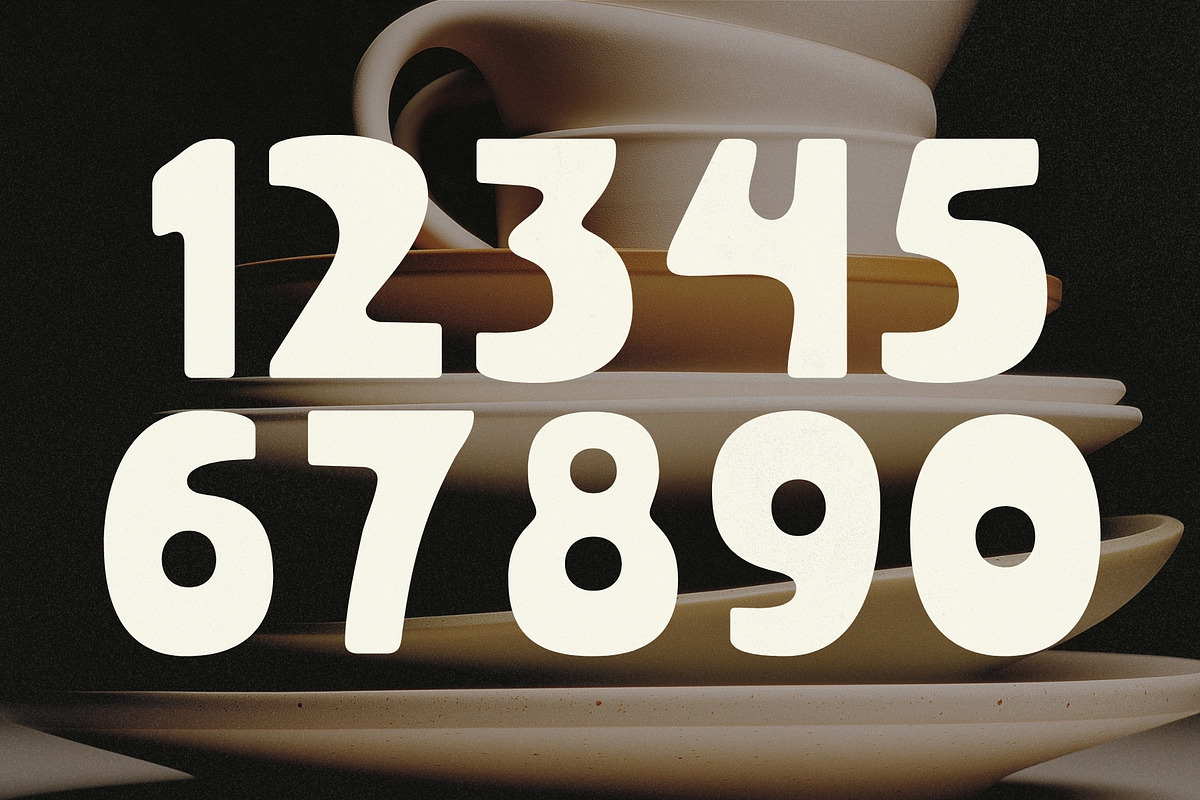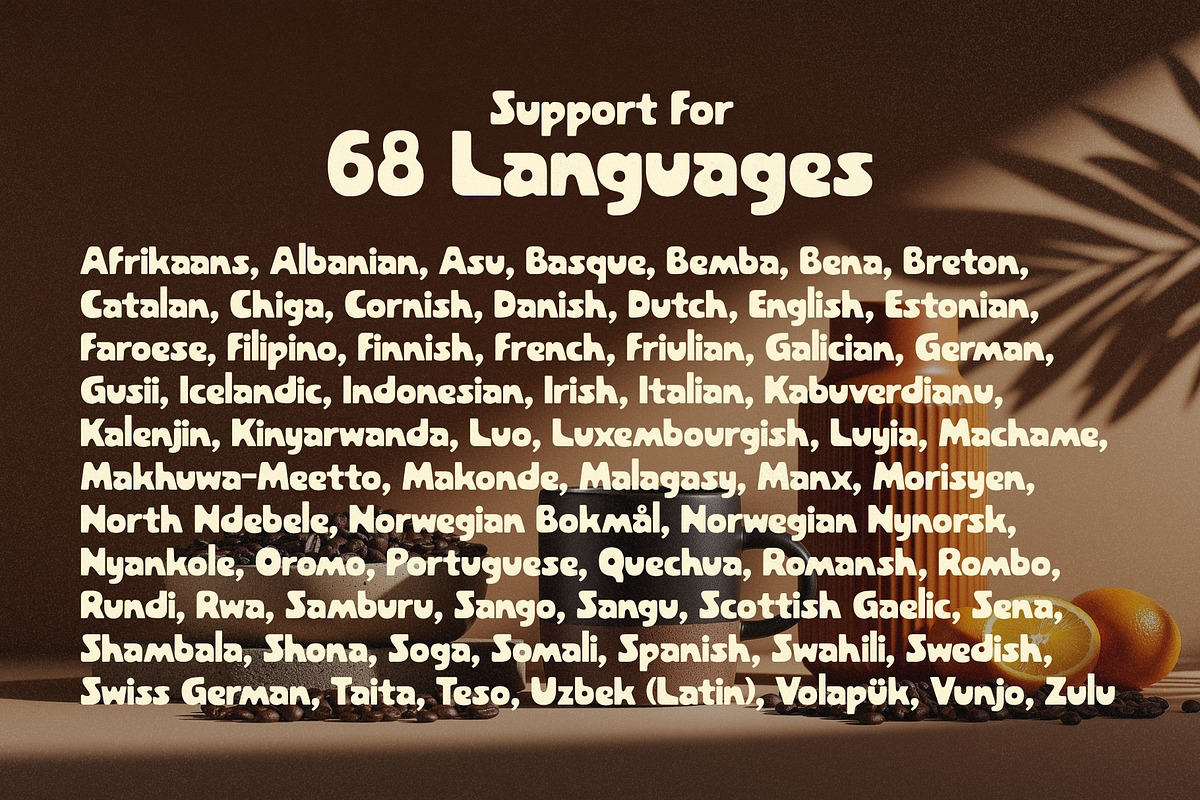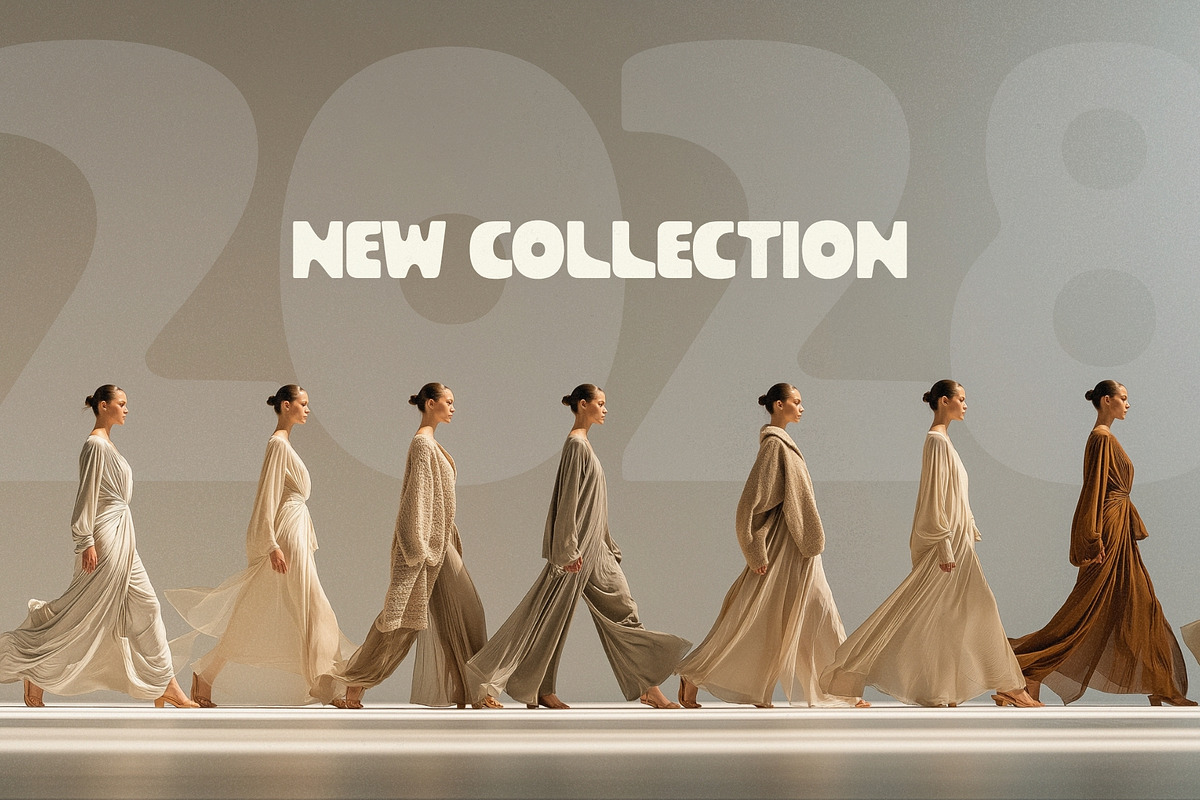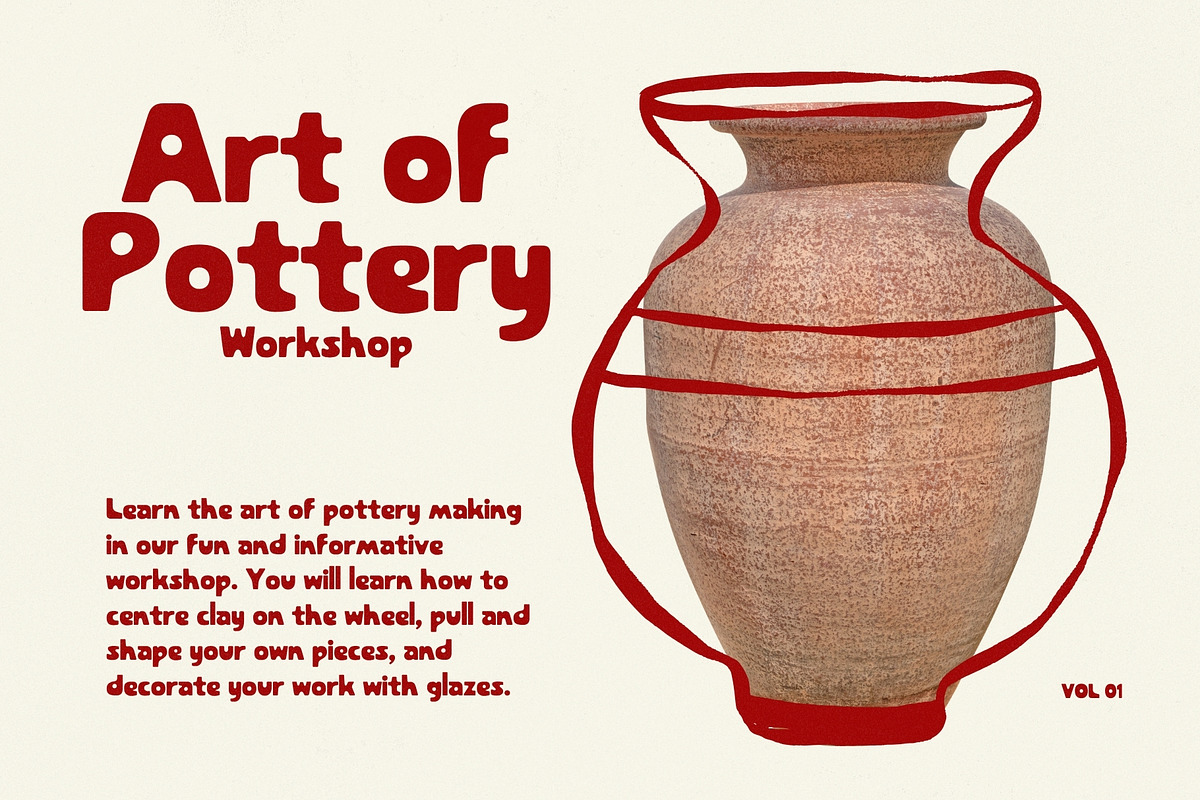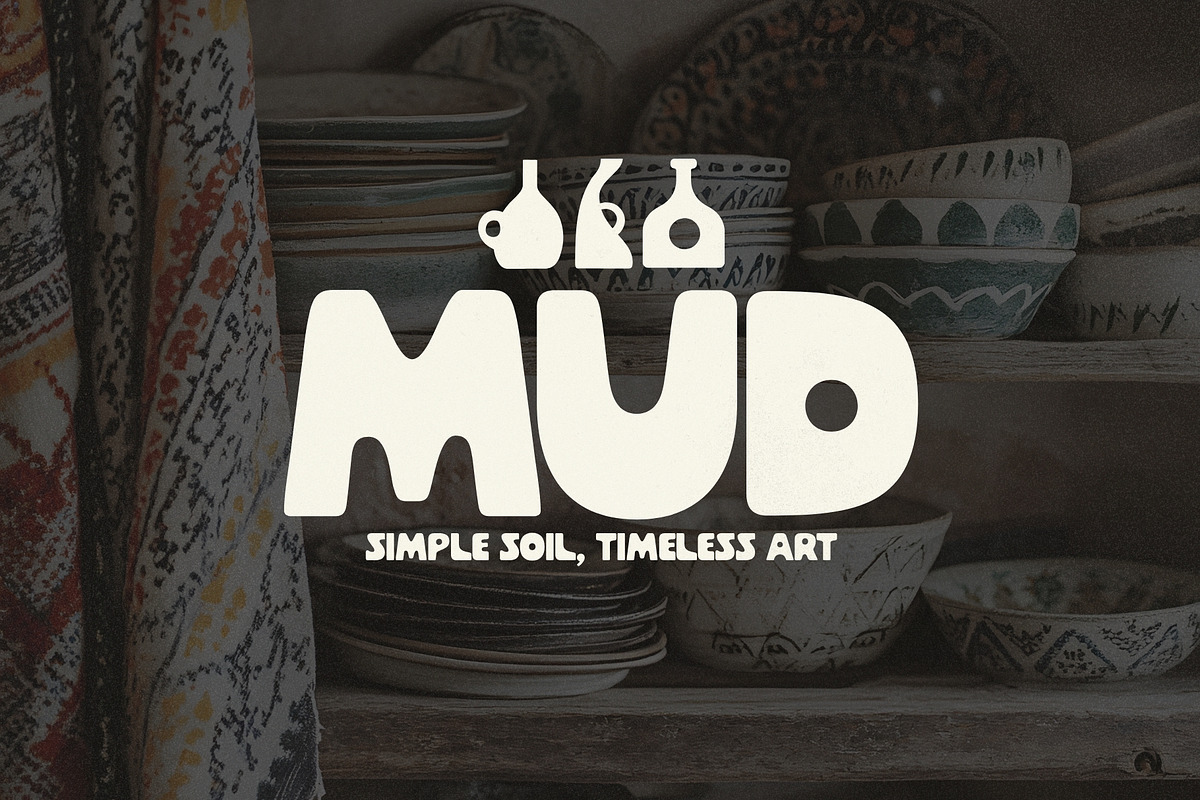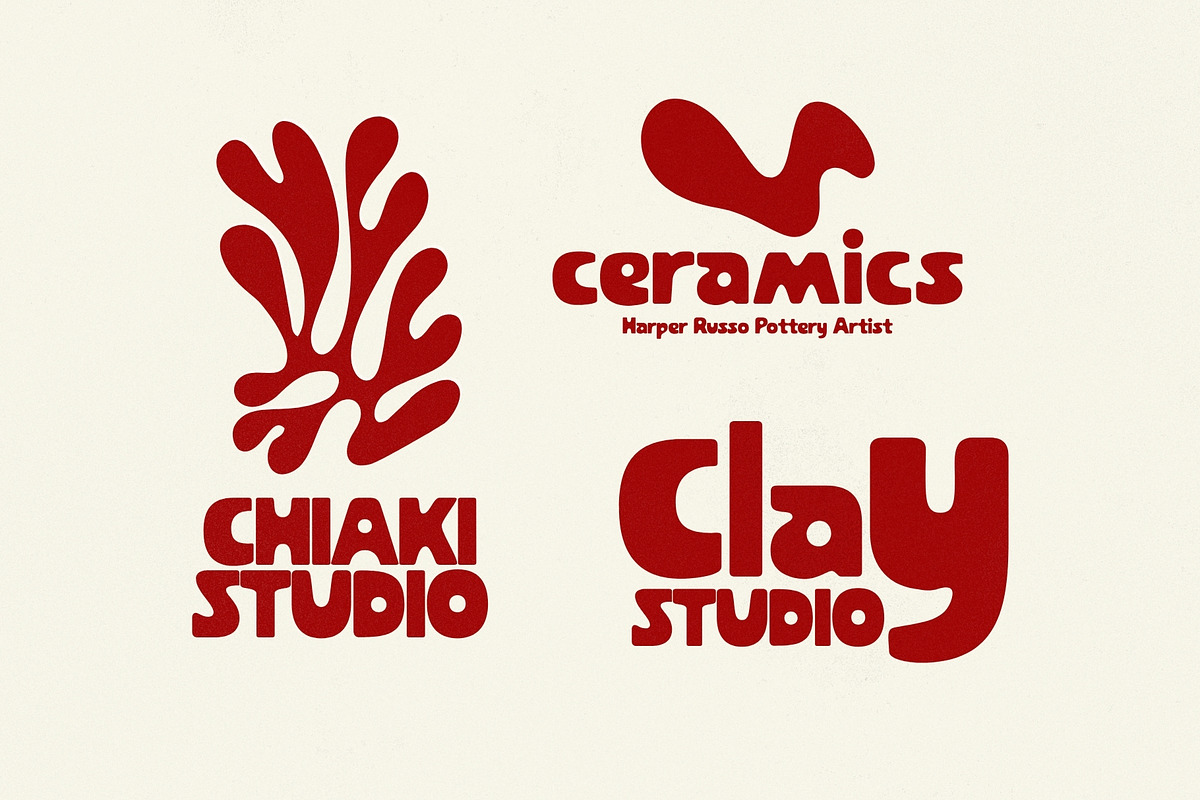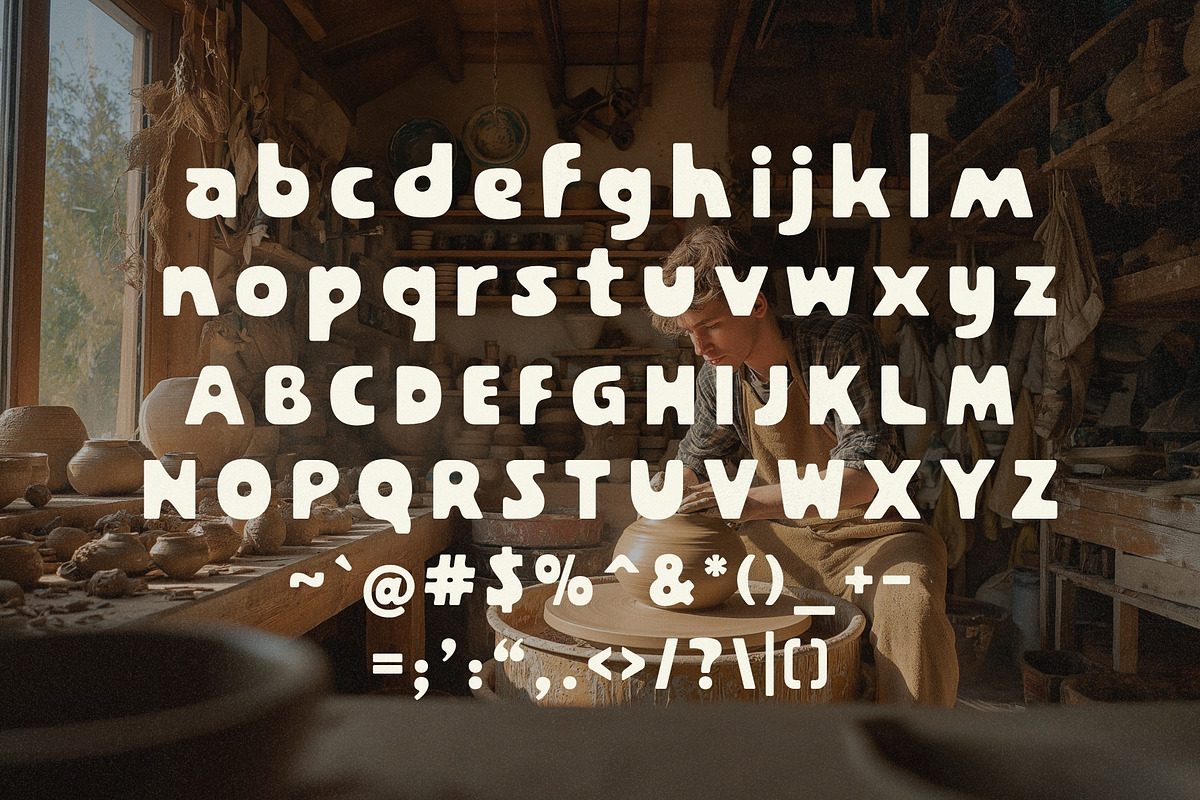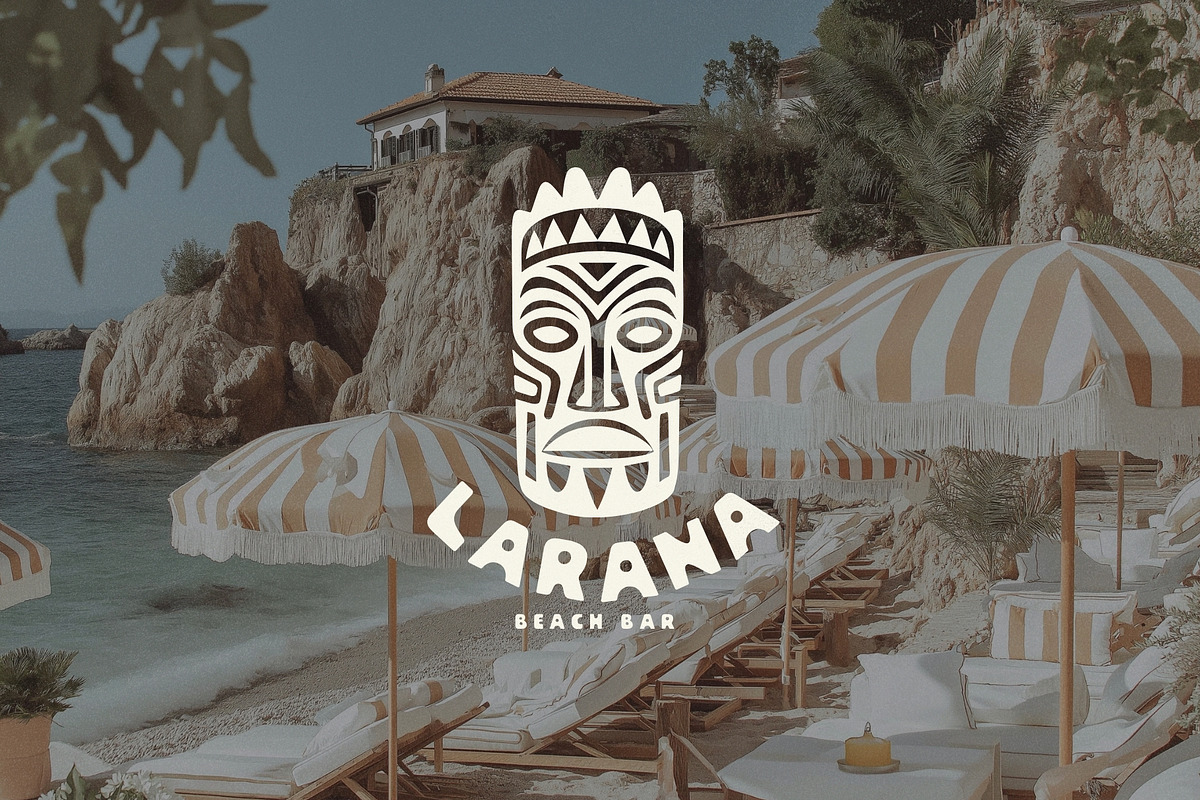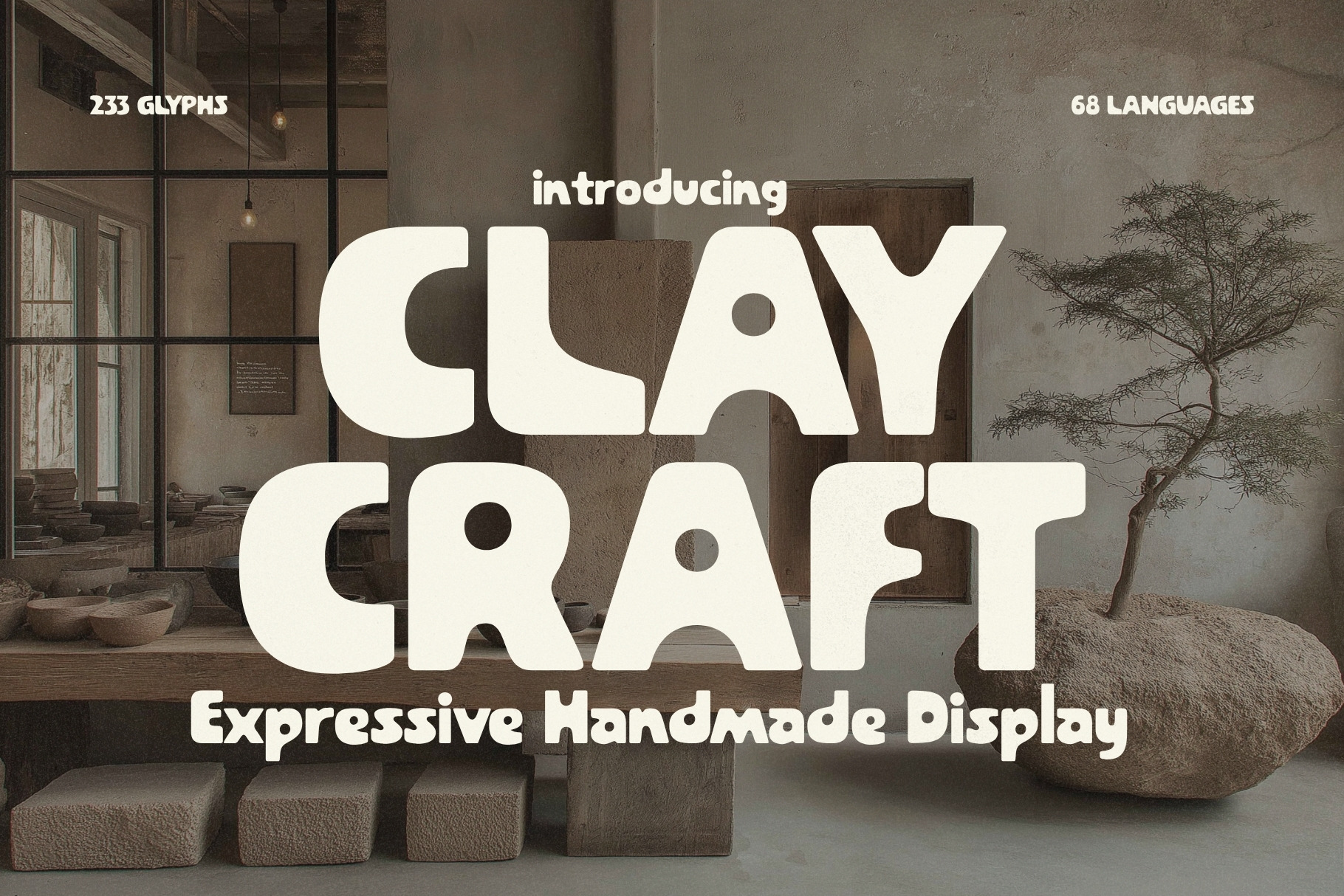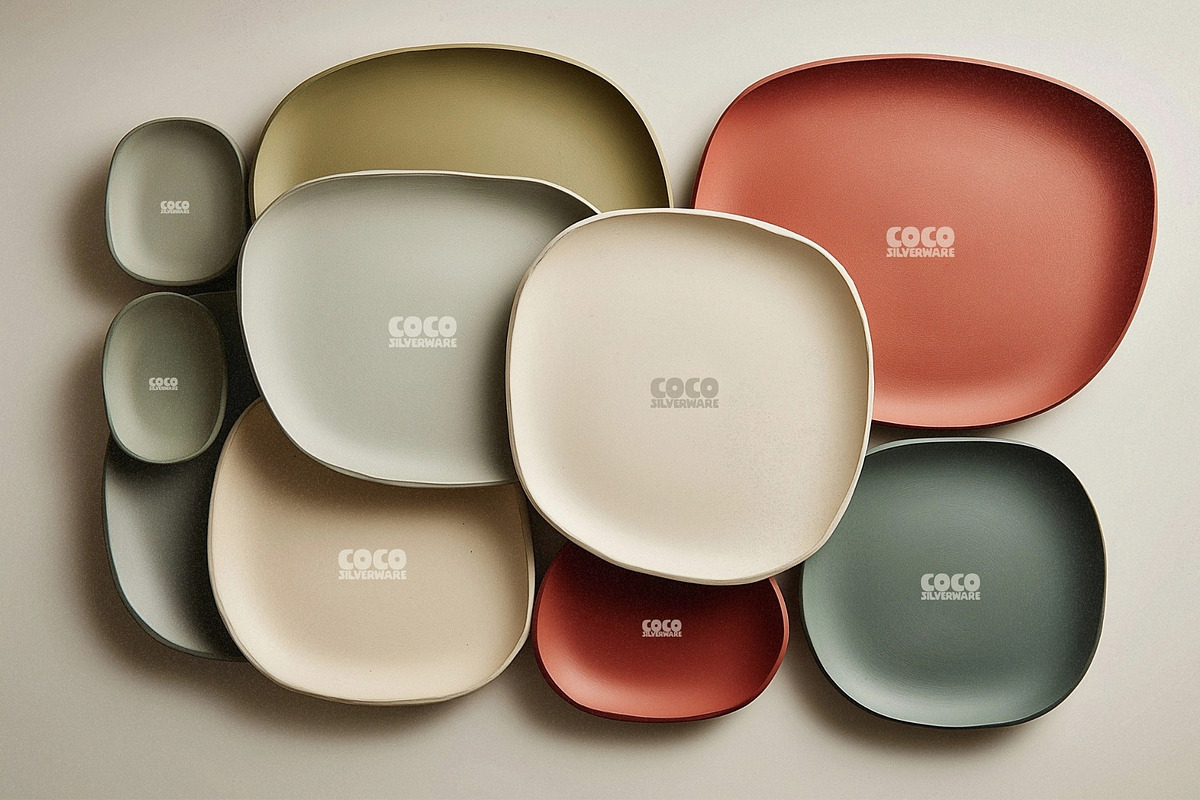
Claycraft - Handmade Display Font
Claycraft is a bold handmade display typeface inspired by folk art, vintage signage, and the beauty of imperfect craftsmanship. Built with expressive curves, organic forms, and charming irregularities, this typeface brings warmth, personality, and a truly human touch to your designs.
Every letter in Claycraft feels hand-shaped, as if sculpted from clay—full of natural movement, playful proportions, and artisanal character. Its imperfect contours create an authentic handcrafted aesthetic while maintaining strong readability and visual balance.
Designed to stand out, Claycraft shines in projects that demand originality and soul. Whether you're building branding systems, packaging designs, posters, logos, album covers, editorial headlines, or artistic merchandise, this typeface delivers bold presence with creative warmth.
Its strong silhouettes and friendly structure make it versatile enough for both modern and vintage-inspired projects, giving designers the freedom to create work that feels timeless, tactile, and unforgettable.
Handmade. Expressive. Full of soul.